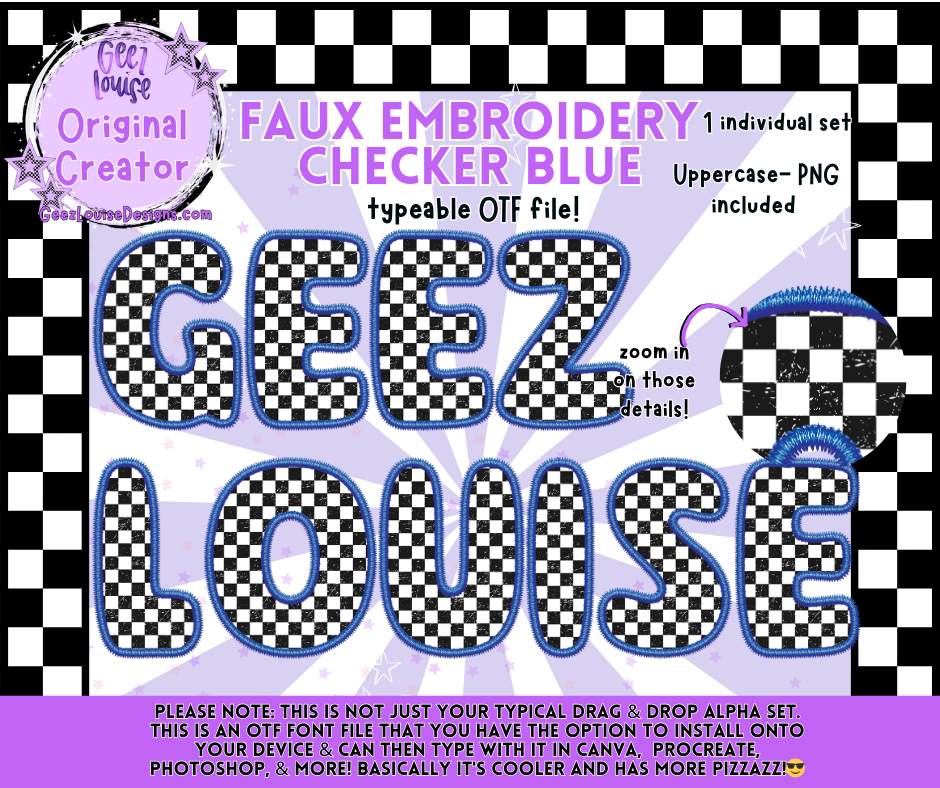
Faux Embroidery Checker Blue OTF Alpha | Typeable Font + PNG Set
Give your designs that stitched, checkerboard pop with the Faux Embroidery Checker Blue alpha. This download includes a typeable OTF font (so you can type instantly) plus a matching PNG letter set for drag-and-drop work.
Perfect for tees, tumblers, stickers, spirit wear, and bold typographic graphics—get the embroidered look without the thread.